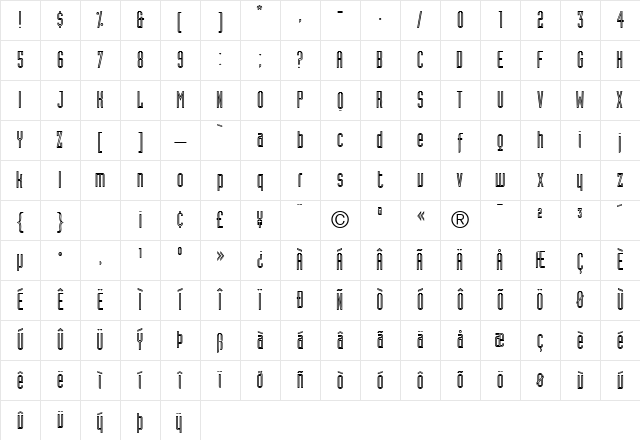
AssemblyAlternateSSK Regular Free Font
Design Context for AssemblyAlternateSSK
AssemblyAlternateSSK is a composed and adaptable typeface that performs quietly and consistently across a wide range of design contexts.